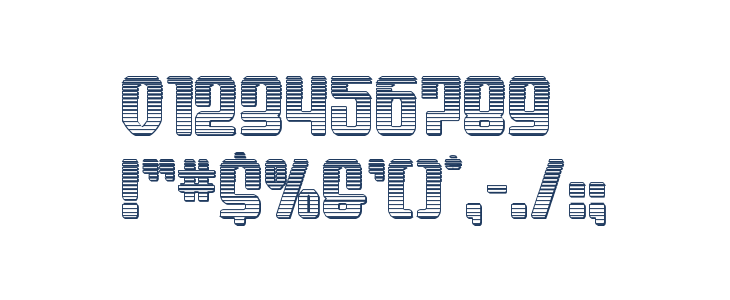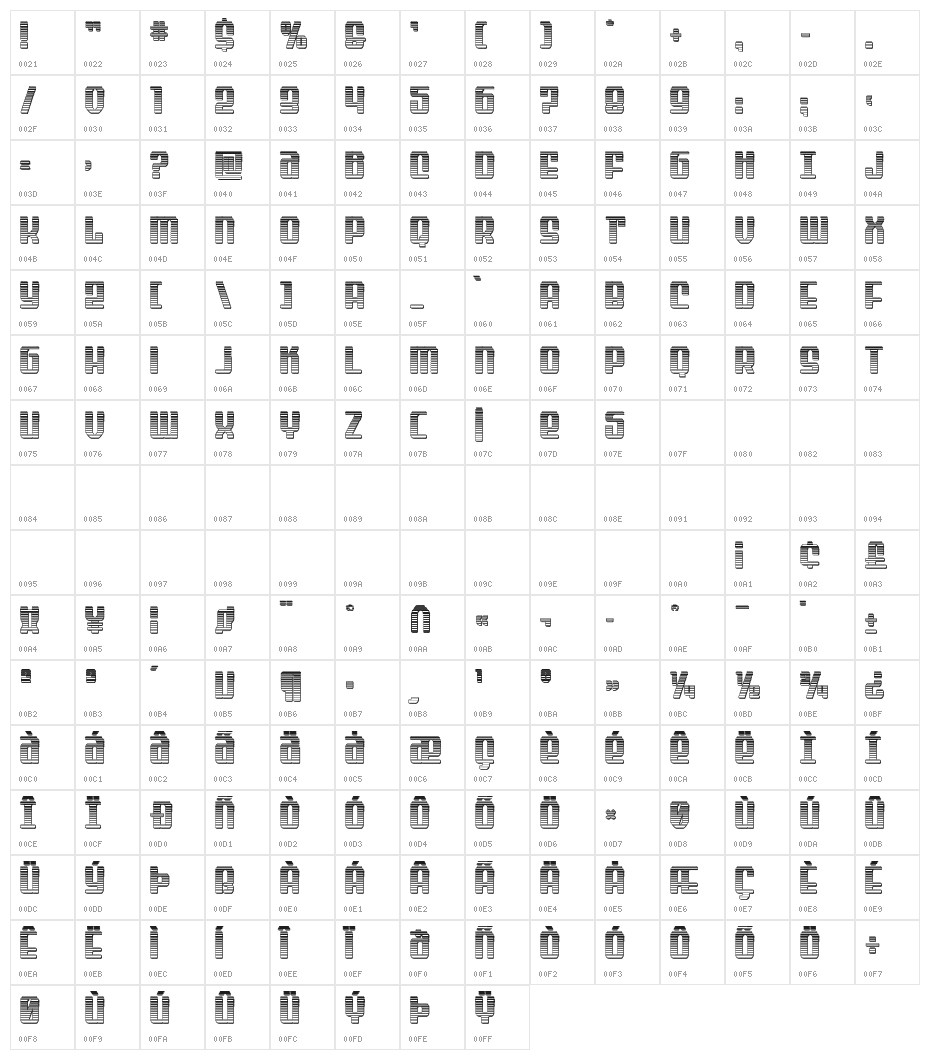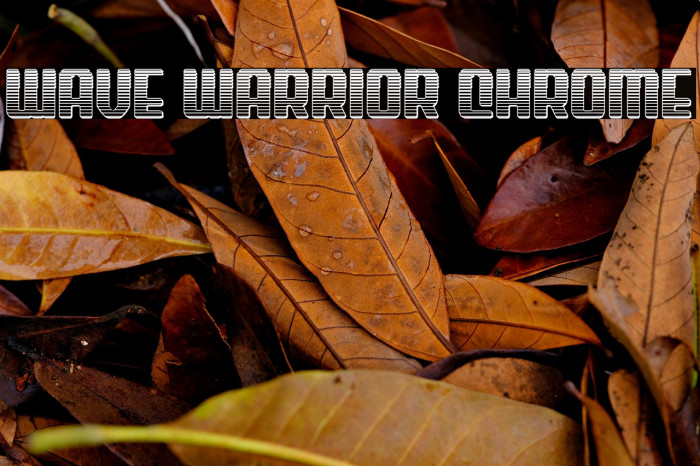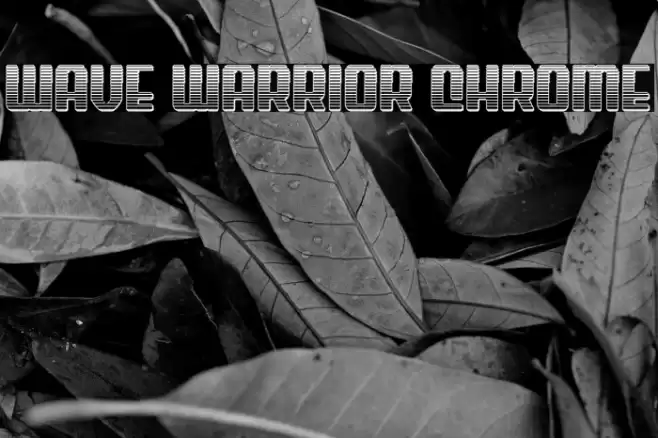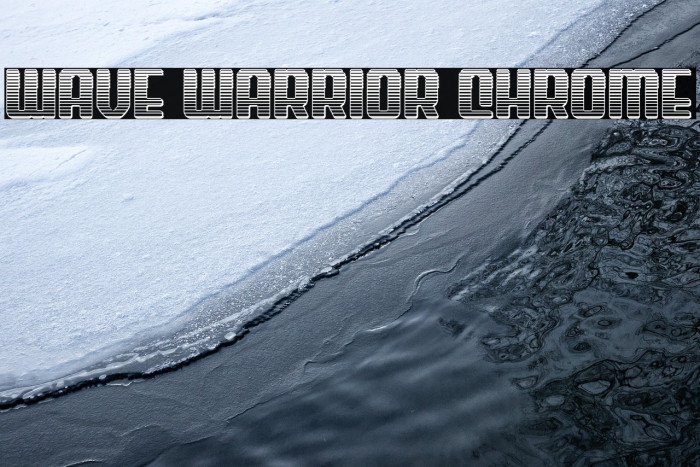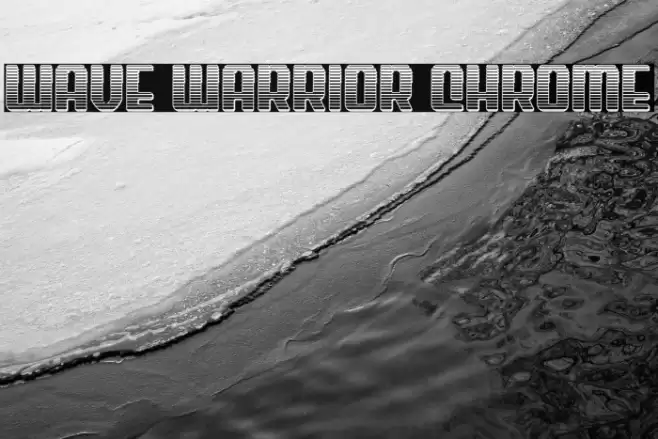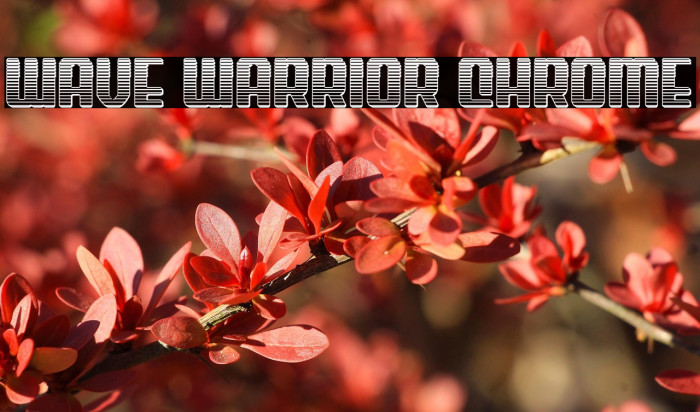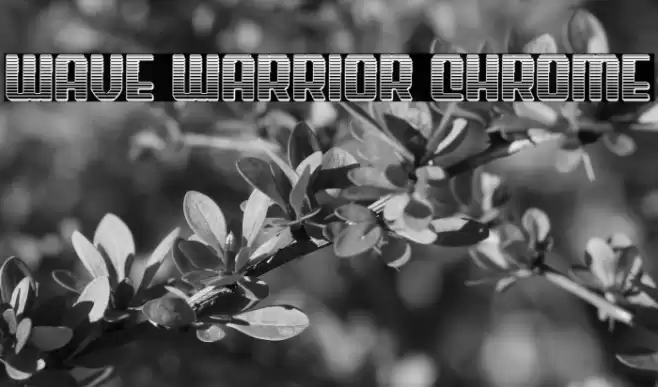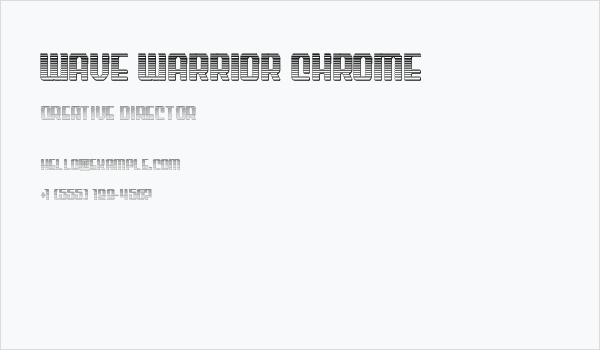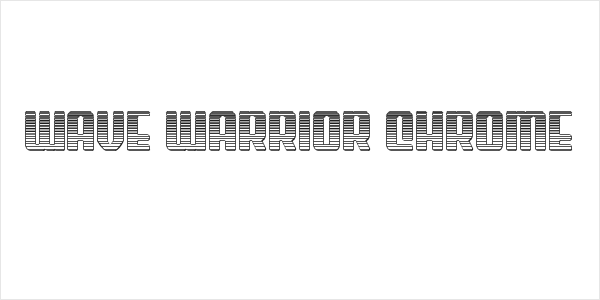
Wave Warrior Chrome Font
Wave Warrior Chrome Description
This font features a bold, futuristic design with a distinctive layered appearance. Each character is constructed with multiple horizontal lines, creating a sense of depth and dimension. The geometric structure of the letters is consistent, with sharp angles and clean edges, giving it a modern and industrial feel. The uppercase and lowercase letters maintain uniformity in style, while the numerals and special characters are crafted to match the overall aesthetic. This font's unique style makes it stand out, suitable for projects that require a strong visual impact.
| Overall Style | Futuristic, Industrial |
| Proposed Projects | Ideal for sci-fi themed posters, video game titles, tech branding, and futuristic event invitations. |